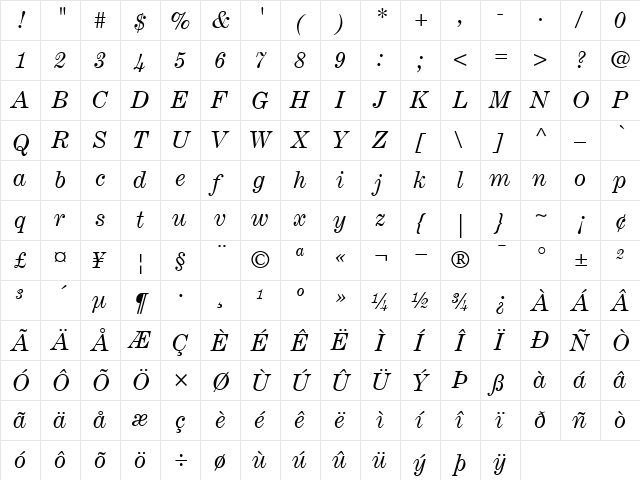
Century-Expanded RomanItalic
Design Context for Century-Expanded Typeface
Century-Expanded offers clean, dependable letterforms without strong stylistic allegiance, making it a practical choice for designers who need flexibility. The dynamic lean of this cut emphasises speed and emphasis in any layout.
Pro Tip: Try Century-Expanded for annotation and caption copy alongside an upright companion — the contrast in angle creates a dynamic but ordered typographic system.